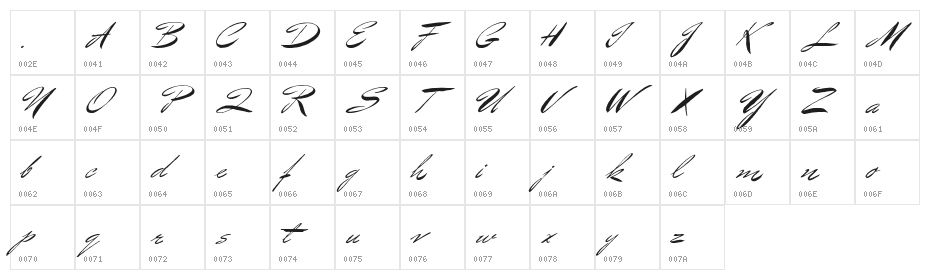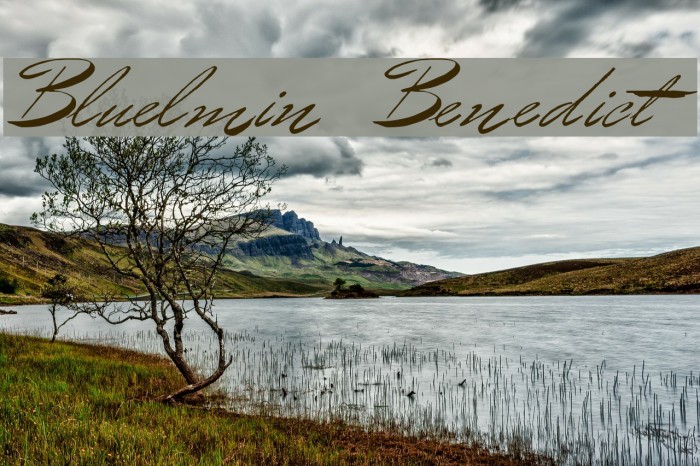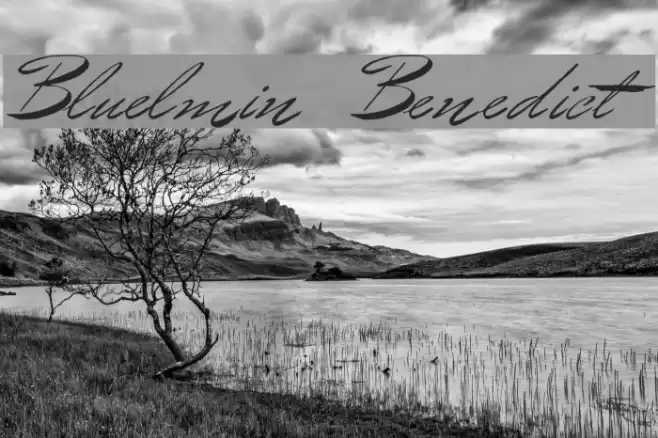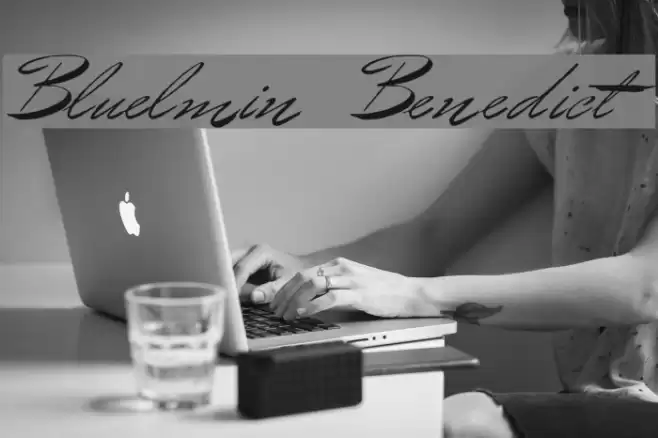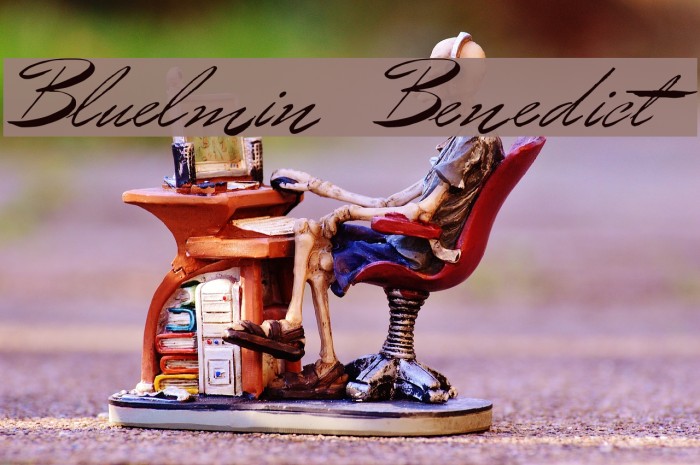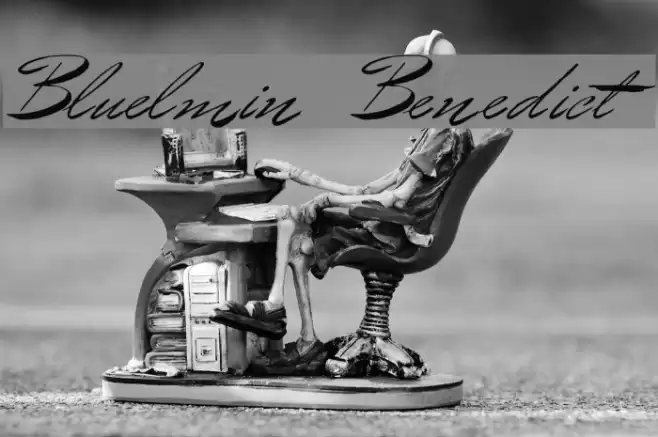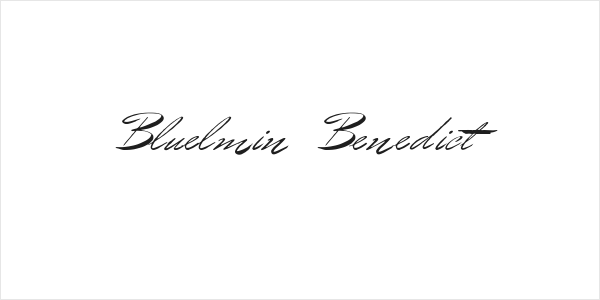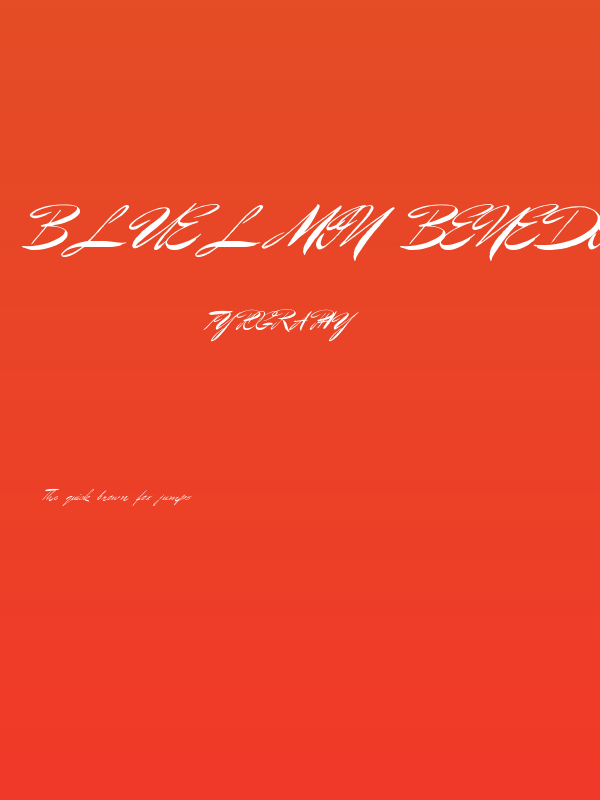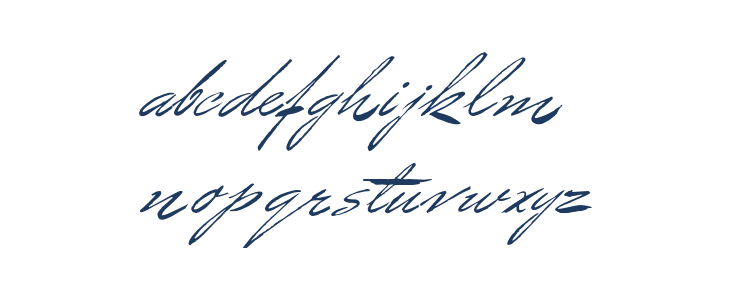
Bluelmin Benedict Font
Bluelmin Benedict Description
This font exhibits a dynamic and expressive style, characterized by its fluid, cursive script that mimics the elegance of traditional calligraphy. The letters are interconnected with sweeping strokes, giving a sense of motion and fluidity. The uppercase letters are bold and prominent, while the lowercase letters maintain a consistent flow, enhancing readability. The overall design is sophisticated, with a touch of artistic flair, making it suitable for creative and formal applications. The font's unique character is further emphasized by its high contrast in stroke thickness, adding depth and dimension to the text.
| Overall Style | Elegant, Artistic |
| Proposed Projects | Ideal for wedding invitations, elegant branding, artistic posters, and personal stationery. |